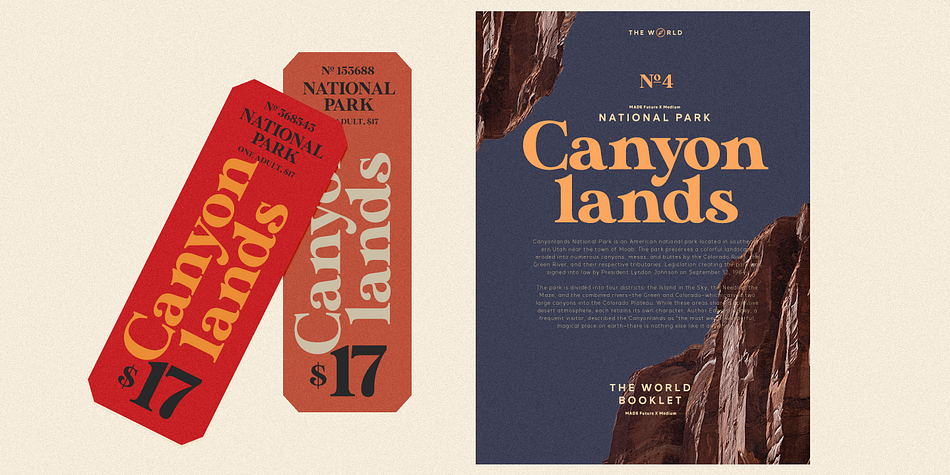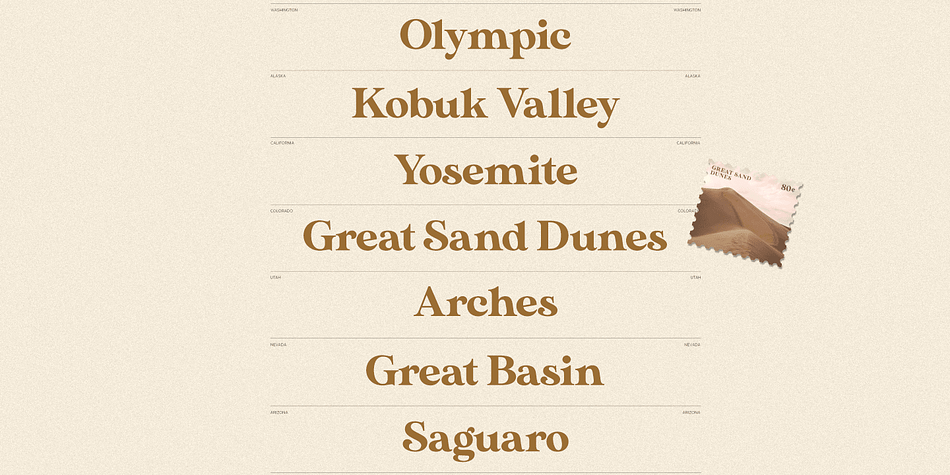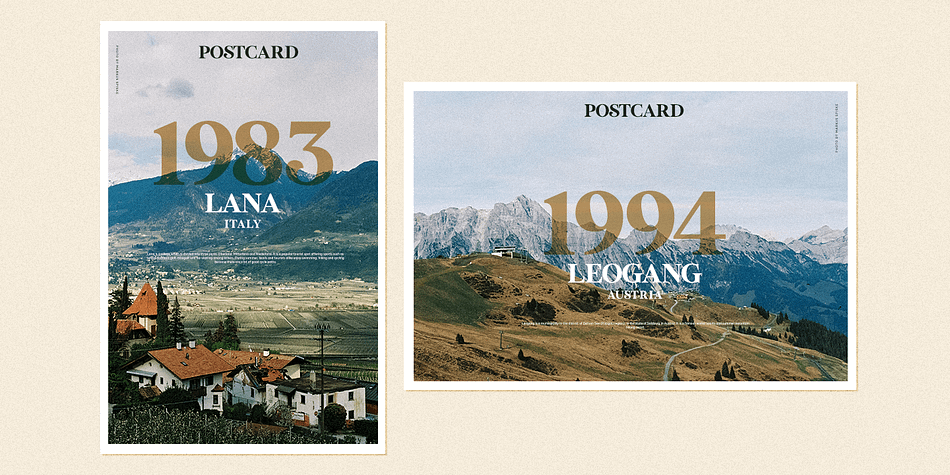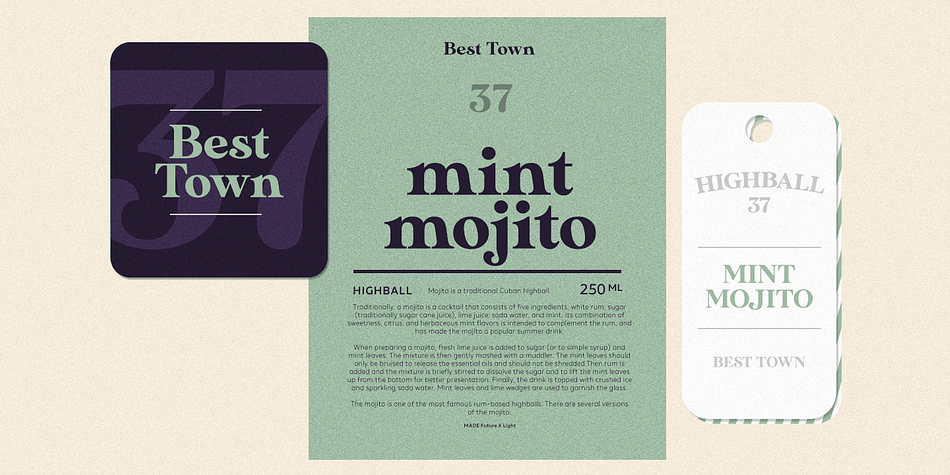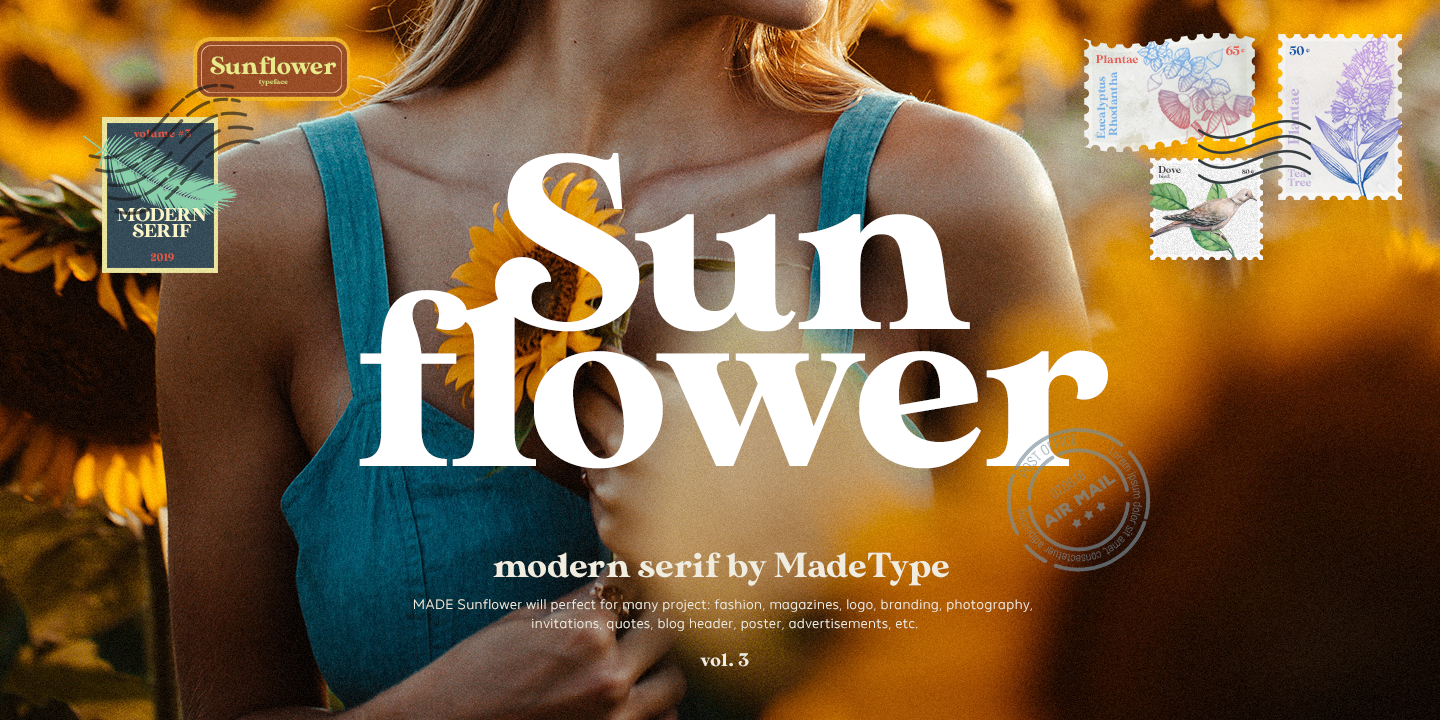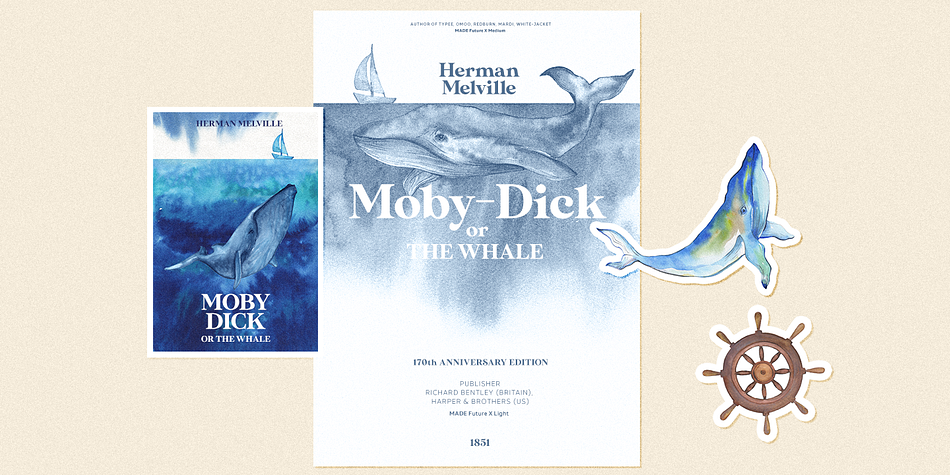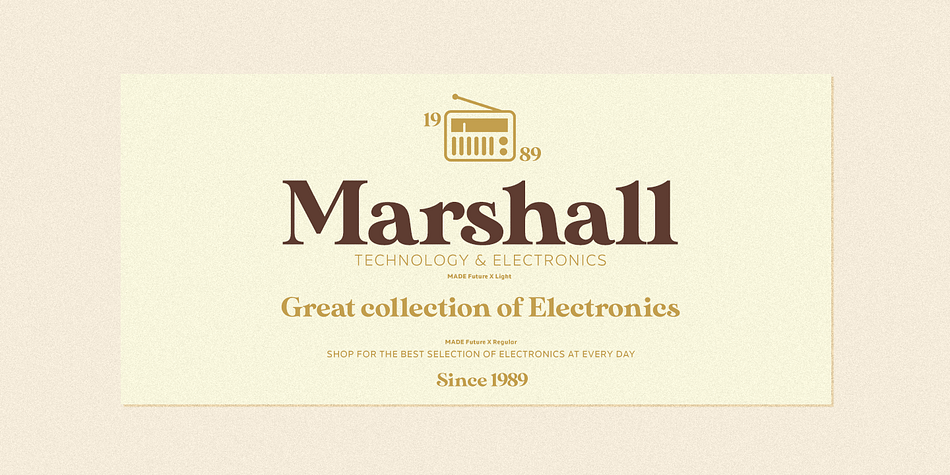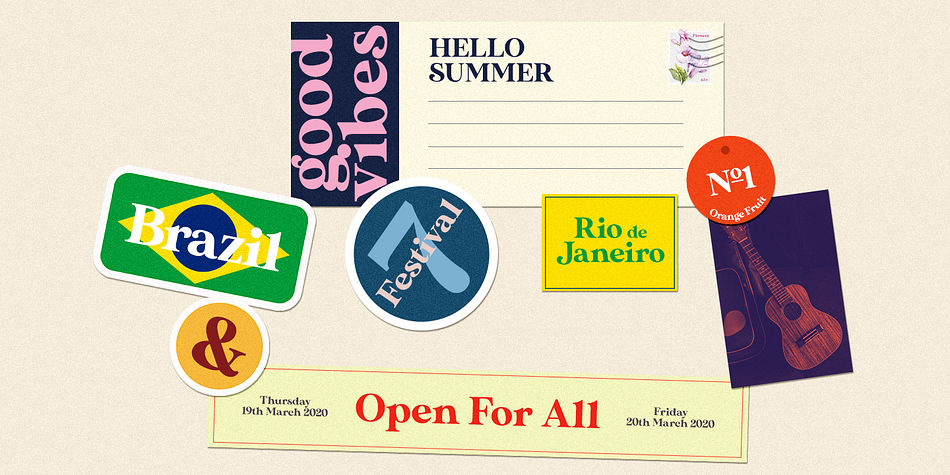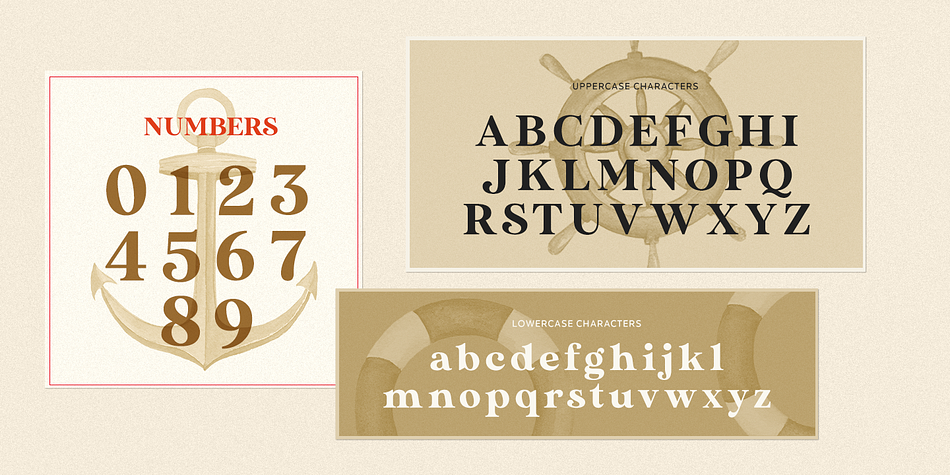
Designed by Maxim Schepin and Denis Schepin, MADE Sunflower is a display serif and serif font published by MadeType.
MADE Sunflower is a modern serif typeface with old style elements.
MADE Sunflower will perfect for many project: fashion, magazines, logo, branding, photography, invitations, quotes, blog header, poster, advertisements, postcard, etc.